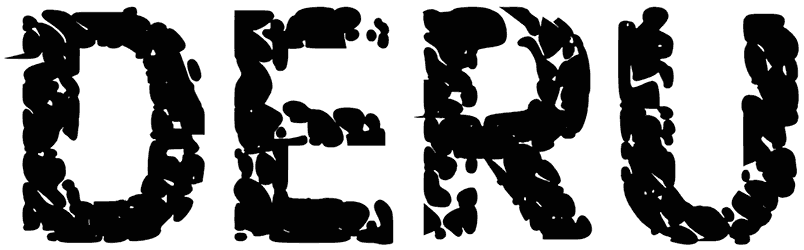
d Deru Font
d Deru is one of RB’s suggestions for keeping your font library updated with new resources that can provide you with many ideas for implementing controversial and social projects.
This eroded font works well wherever it needs attention and can bring you the joy of creating unique designs. So what are you waiting for? Use this fancy font to brighten your resume for designing posters, headlines, website banners, and book covers.